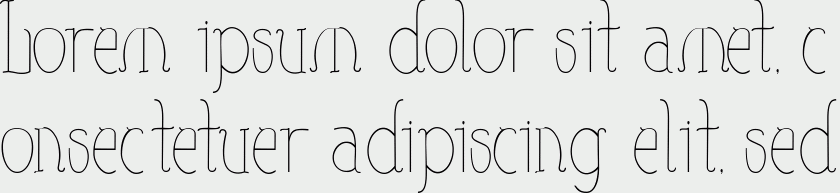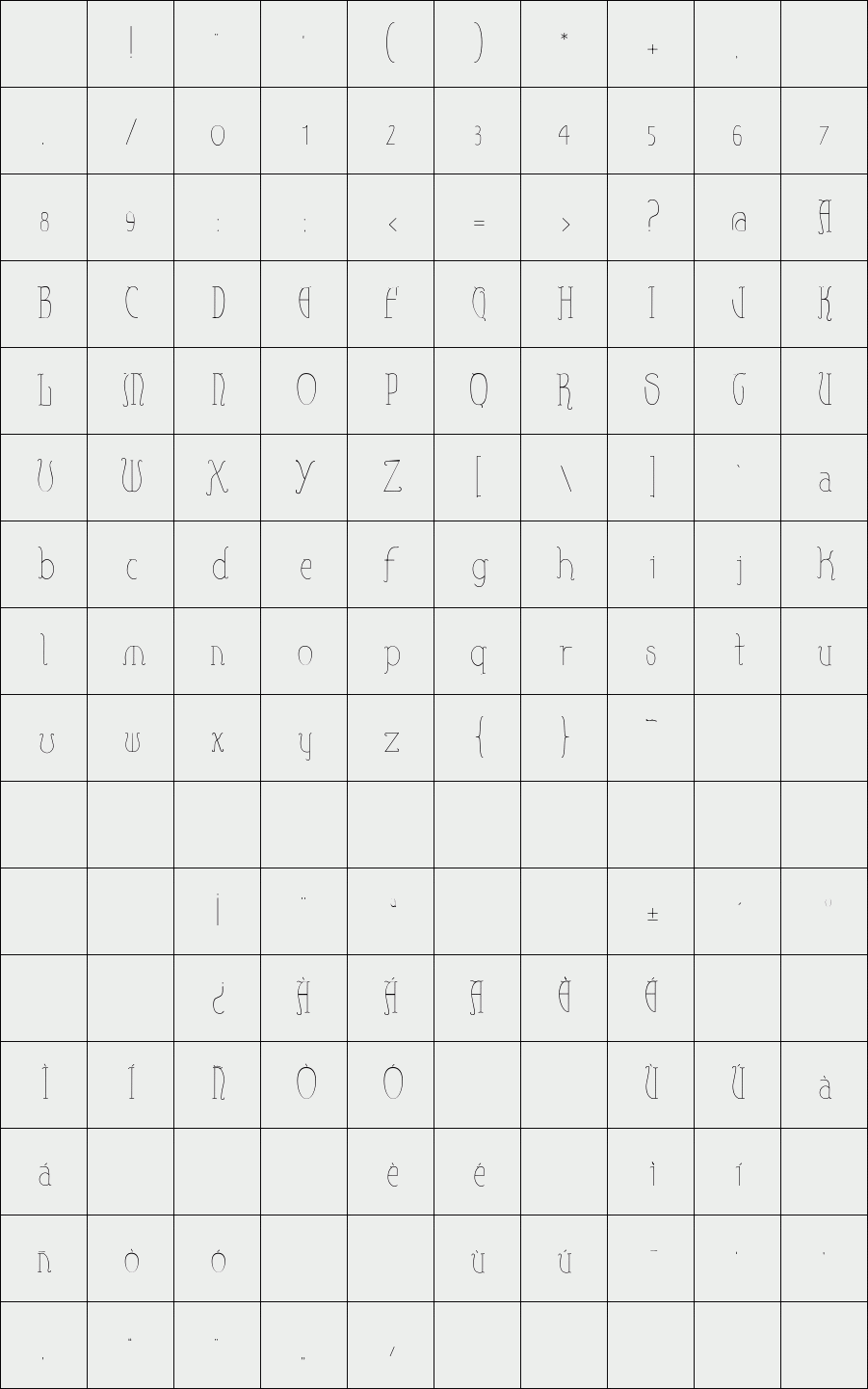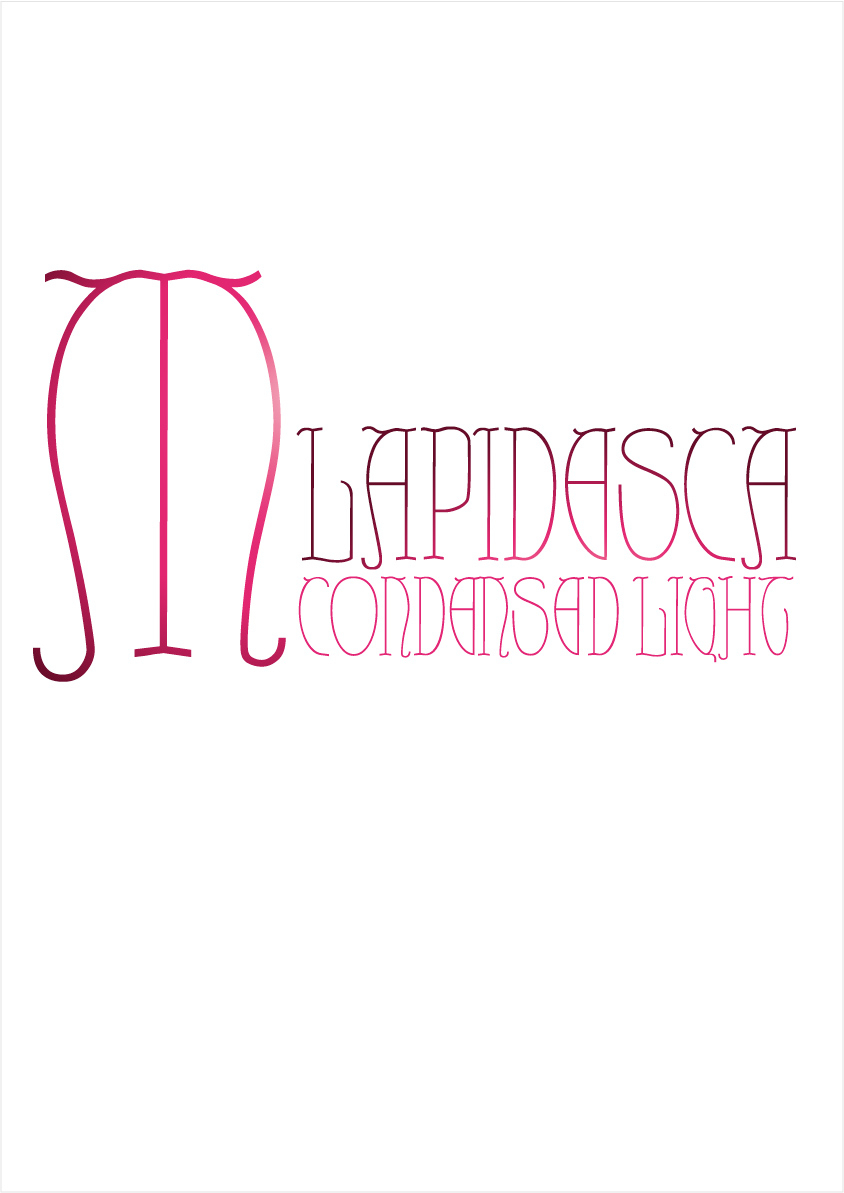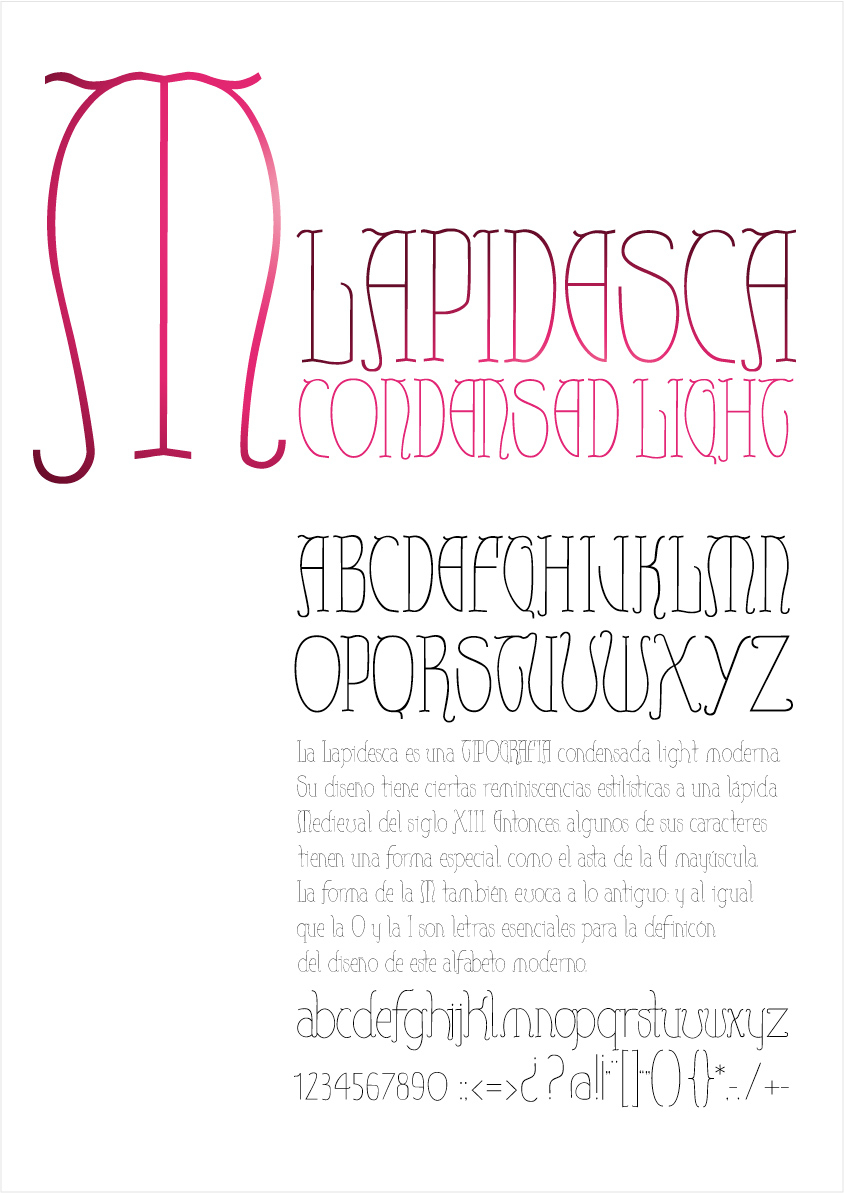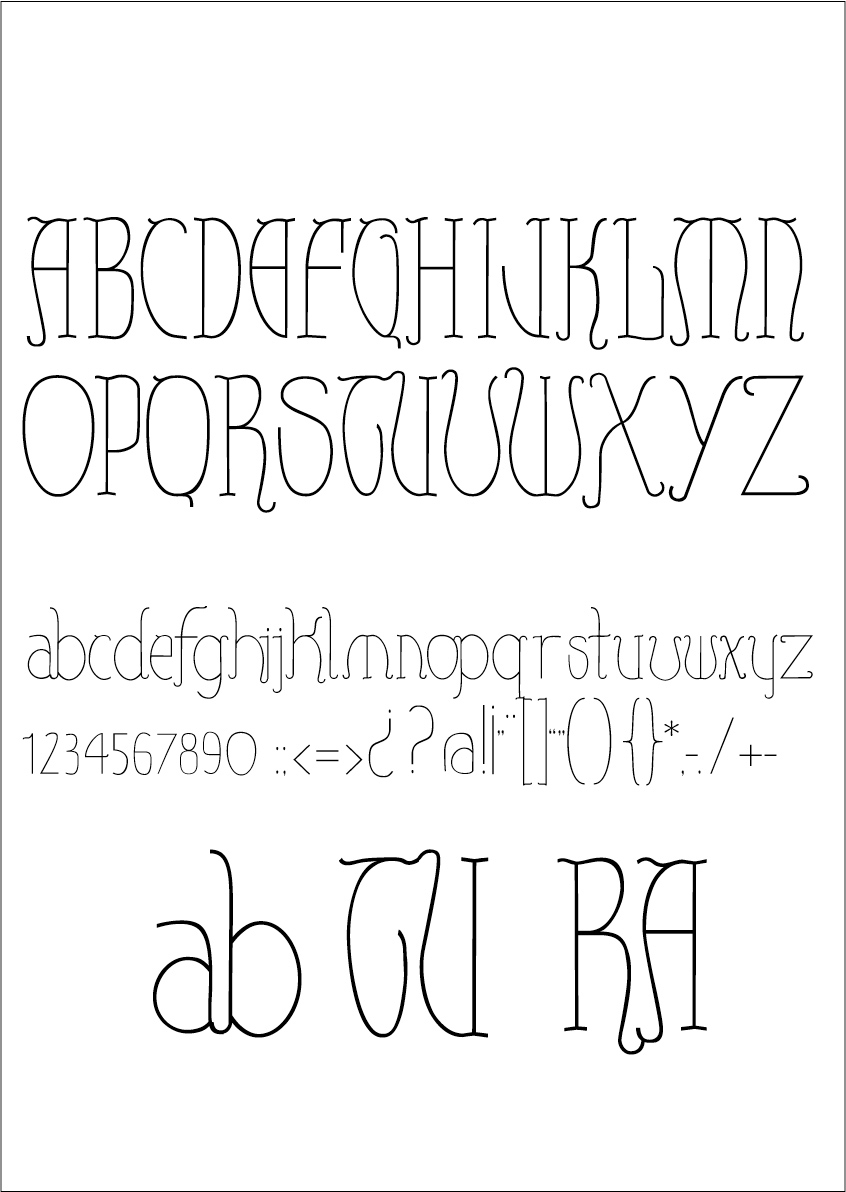
Lapidesca
For the design we rely on the registration of a medieval tombstone s.XIII. We had some old design features. The modernized making a light stroke and type uniform.
Designer: María Cecilia Brarda